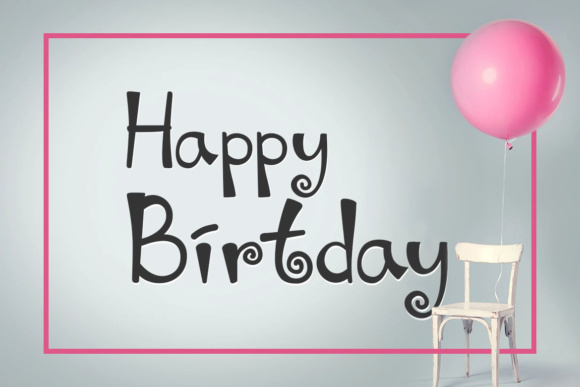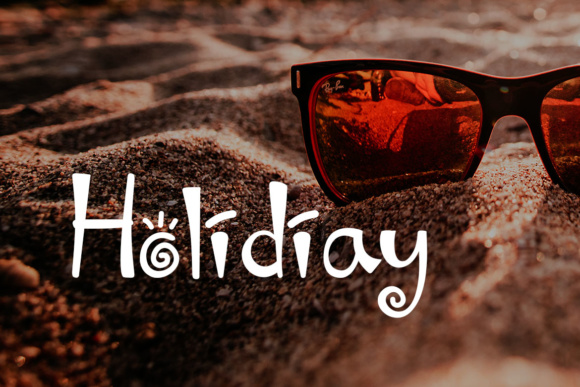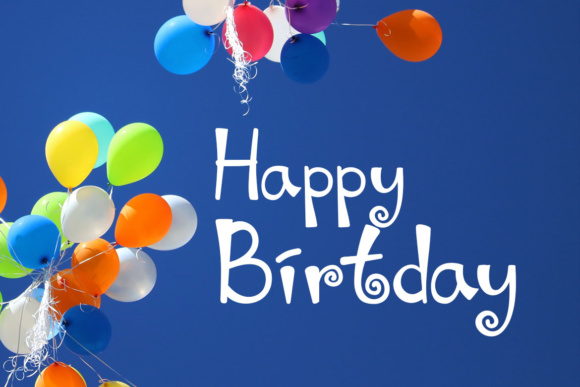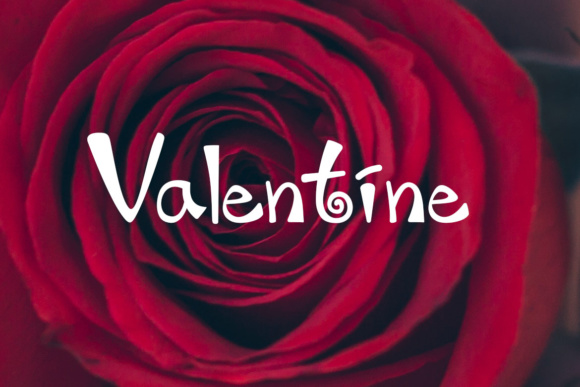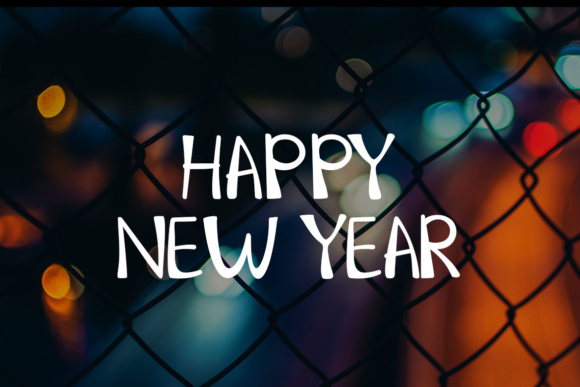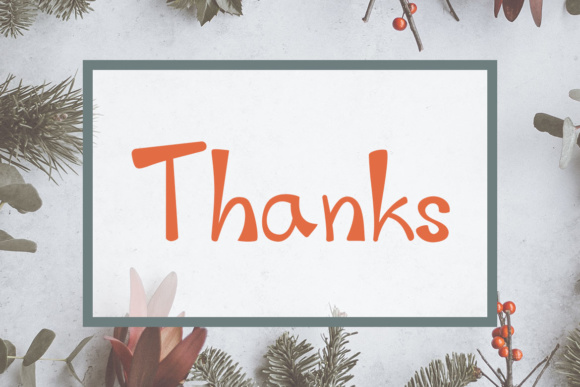
The Joyful World of Curly Font: Adding Happiness to Your Designs
In the realm of typography, fonts play a crucial role in conveying emotions and setting the tone for various design projects. Among the numerous fonts available, the Curly Font stands out for its unique, handcrafted style that exudes joy and happiness. In this article, we’ll dive into the world of Curly Font, exploring its characteristics, uses, and benefits for designers and crafters.
The Birth of Curly Font
The Curly Font is a handwritten font carefully crafted with the intention of spreading happiness. Its creator aimed to design a font that would bring a smile to people’s faces, and the result is a beautiful, curly script that radiates warmth and friendliness. Each character is meticulously designed to be not only aesthetically pleasing but also easy to read and remember.
Key Features of Curly Font
• Unique Character Set: Curly Font boasts a distinctive set of characters that are easy to recognize and recall. Its uniqueness makes it an excellent choice for designs that require a personal touch.
• Easy Readability: Despite its curly and artistic nature, the font maintains high readability, making it suitable for various applications, from titles and headings to body text.
• Emotional Connection: The font’s joyful and happy feel can evoke positive emotions, making it perfect for designs intended to celebrate special occasions or convey warmth.
Applications of Curly Font
Curly Font’s versatility and charming personality make it an excellent choice for a wide range of design projects. Here are some ideal applications:
• Invitations: Whether it’s a wedding invitation, birthday party invite, or any other celebration, Curly Font adds a touch of elegance and joy.
• Book Covers: For authors and publishers looking to convey a sense of happiness and approachability, Curly Font can be a great choice for book covers, especially for children’s books or self-help genres.
• Holiday Designs: The font is particularly well-suited for festive designs related to birthdays, Valentine’s Day, New Year’s, and other celebrations that merit a cheerful and optimistic tone.
• Branding and Packaging: Brands aiming to establish a friendly and approachable image can leverage Curly Font in their logos, product packaging, and marketing materials.
For designers and crafters, Curly Font offers several advantages:
• Time-Saving: With its high readability and instant recognition factor, using Curly Font can save time in design projects, as it quickly communicates the intended mood.
• Creative Freedom: The font’s unique style gives designers the creative freedom to experiment with various design concepts while maintaining a cohesive and appealing aesthetic.
• Emotional Engagement: By incorporating Curly Font into their designs, creators can more effectively engage their audience on an emotional level, leading to a stronger connection with their work.
Curly Font is more than just a typeface; it’s a tool for designers and crafters to infuse their projects with happiness and warmth. Its distinctive, easy-to-read characters make it suitable for a variety of applications, from festive invitations to book covers and branding. By choosing Curly Font, creators can ensure their designs not only look beautiful but also evoke positive emotions in their audience. Whether you’re working on a commercial project or a personal craft, Curly Font can add that special touch of joy and whimsy that sets your work apart.
So, the next time you’re looking for a font that can bring a smile to people’s faces, consider Curly Font. Its charming and joyful feel is sure to make your designs more engaging, memorable, and impactful.